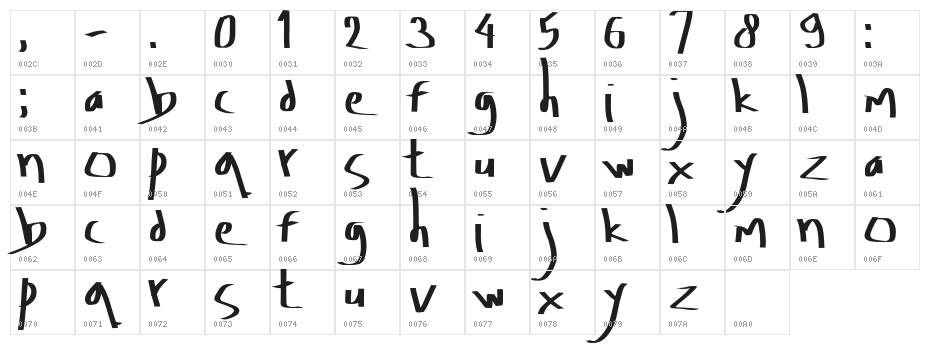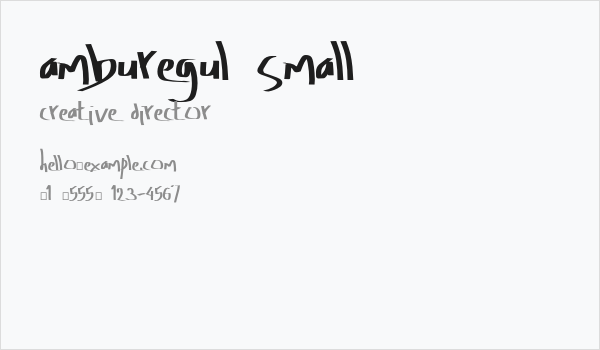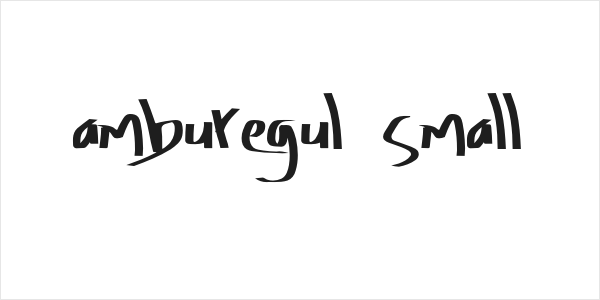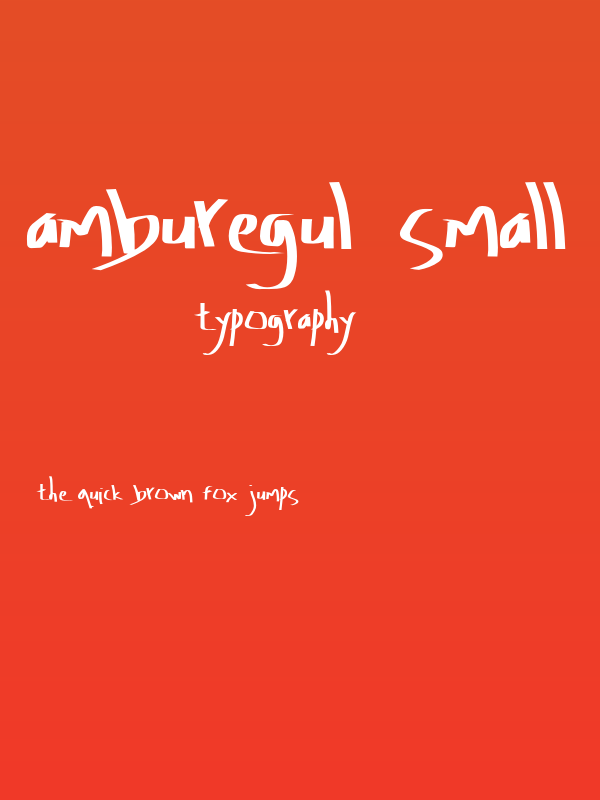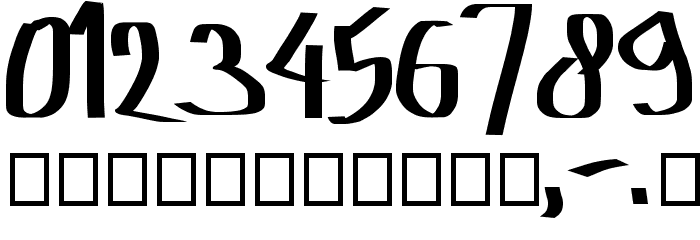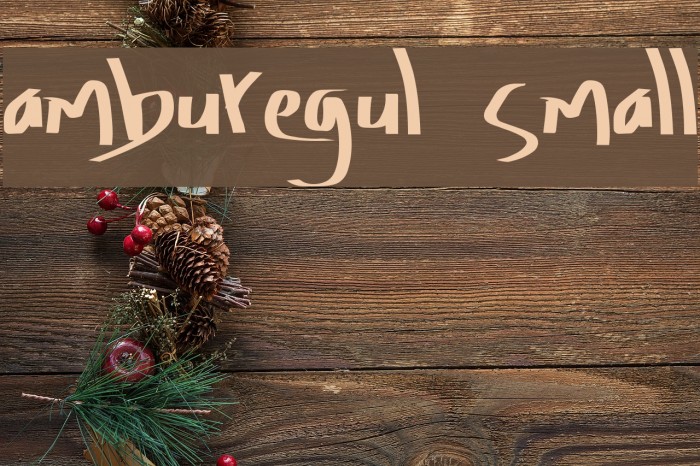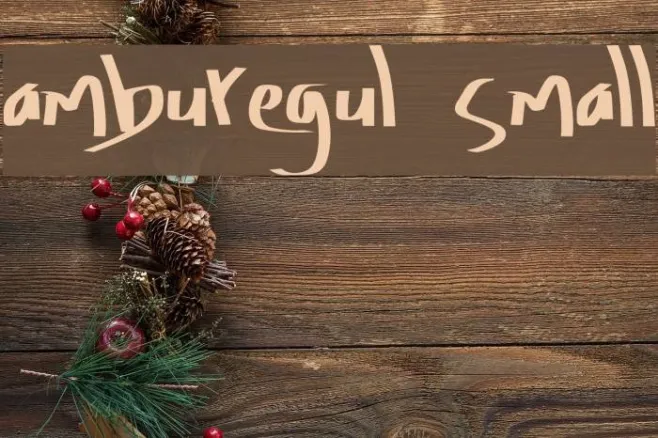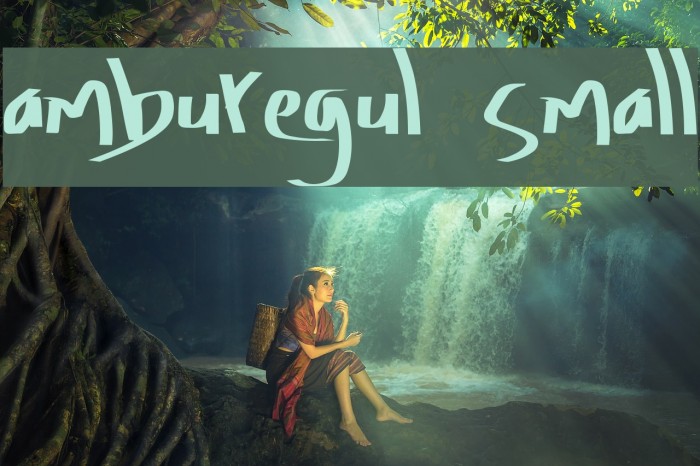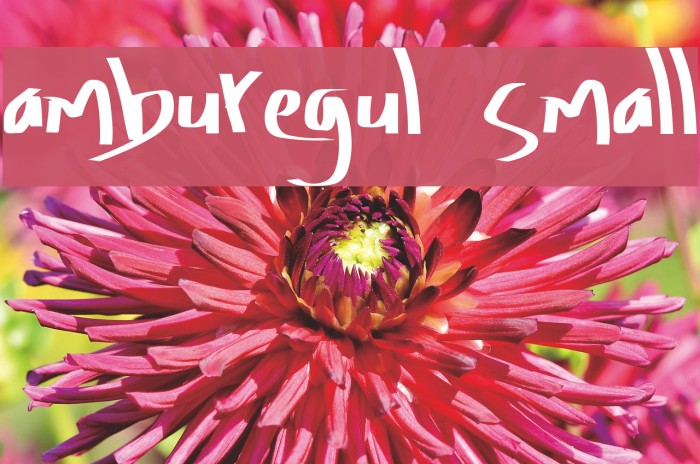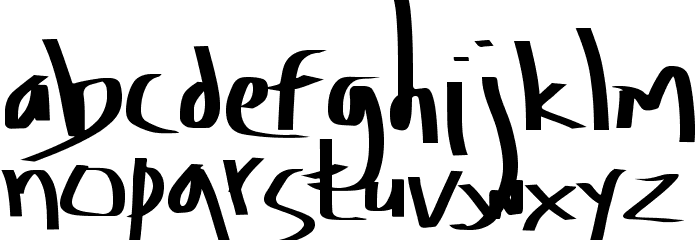
Amburegul Small Font
Amburegul Small Description
This font features a bold and expressive handwritten style, characterized by its dynamic and slightly irregular strokes. The letters are crafted with a sense of movement, giving them a lively and energetic appearance. The uppercase and lowercase letters maintain a consistent style, with some characters having unique flourishes that add to the overall personality of the font. The numbers are equally bold, with a playful yet clear design. The special characters complement the alphabet with similar stylistic elements, ensuring a cohesive look across all text. This font is ideal for projects that require a personal touch or a creative flair.
| Proposed Projects | Perfect for creative projects such as posters, invitations, branding, and social media graphics where a personal or artistic touch is desired. |